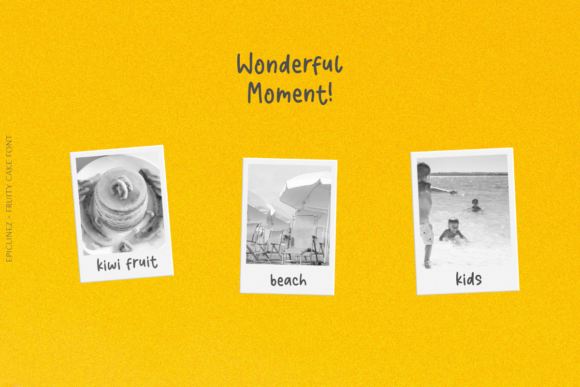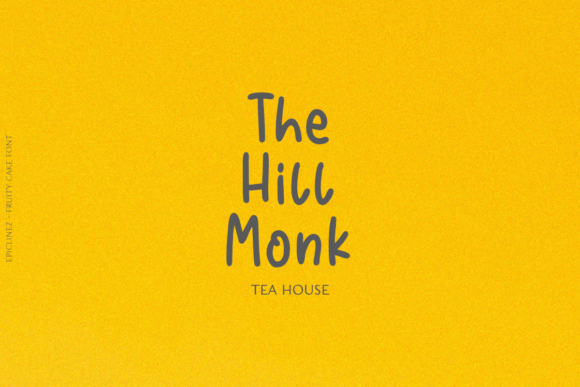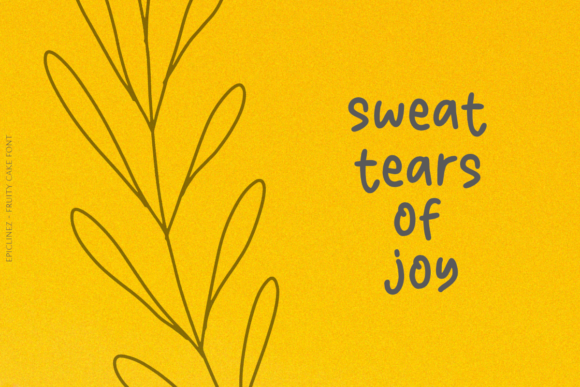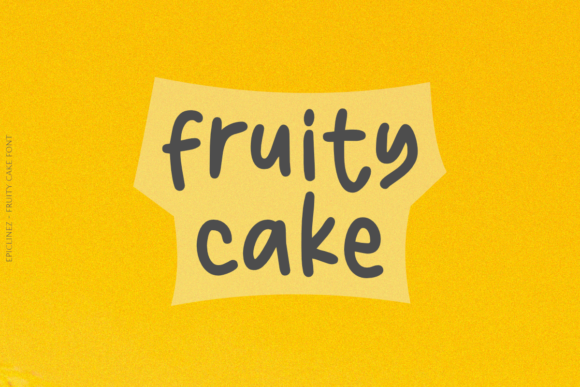
Fruity Cake Font: Add a Splash of Creativity to Your Designs!
Are you looking for a font that can add a playful touch to your designs? Look no further than the Fruity Cake font! This delightful handwritten font features a dancing baseline, making it perfect for children’s crafts, teaching materials, and any other design that needs a splash of creativity. In this article, we’ll dive into the world of Fruity Cake font and explore its features, uses, and benefits.
What is Fruity Cake Font?
Fruity Cake is a playful handwritten font designed to bring a sense of fun and playfulness to your designs. Its unique dancing baseline gives it a lively and energetic feel, making it perfect for designs that need to capture the attention of your audience. The font is highly legible and easy to read, making it suitable for a wide range of applications, from children’s books to educational materials, and even craft projects.
Features of Fruity Cake Font
So, what makes Fruity Cake font so special? Here are some of its key features:
- Playful handwritten style: Fruity Cake font has a playful, handwritten style that’s perfect for designs that need a personal touch.
- Dancing baseline: The font’s dancing baseline gives it a lively and energetic feel, making it perfect for designs that need to capture the attention of your audience.
- Highly legible: Despite its playful style, Fruity Cake font is highly legible and easy to read, making it suitable for a wide range of applications.
- Versatile: Fruity Cake font can be used for a wide range of designs, from children’s crafts to educational materials, and even digital products.
Uses of Fruity Cake Font
Fruity Cake font is a versatile font that can be used for a wide range of designs, including:
- Children’s crafts: Fruity Cake font is perfect for children’s crafts, such as coloring books, activity sheets, and educational materials.
- Teaching materials: The font’s playful style and high legibility make it perfect for teaching materials, such as worksheets, lesson plans, and educational resources.
- Craft projects: Fruity Cake font can be used for a wide range of craft projects, such as card making, scrapbooking, and DIY projects.
- Digital products: The font can also be used for digital products, such as ebooks, printables, and social media graphics.
Benefits of Using Fruity Cake Font
So, why should you use Fruity Cake font in your designs? Here are some of its benefits:
- Adds a playful touch: Fruity Cake font adds a playful touch to your designs, making them more engaging and fun.
- Increases creativity: The font’s unique style and dancing baseline can inspire creativity and help you think outside the box.
- Improves readability: Despite its playful style, Fruity Cake font is highly legible and easy to read, making it perfect for designs that need to communicate information.
- Versatile: Fruity Cake font can be used for a wide range of designs, making it a great addition to your font library.
Tips for Using Fruity Cake Font
Here are some tips for using Fruity Cake font in your designs:
- Use it for headings and titles: Fruity Cake font is perfect for headings and titles, where you want to add a playful touch to your design.
- Pair it with other fonts: Fruity Cake font can be paired with other fonts to create a unique and interesting combination.
- Experiment with colors and textures: The font’s playful style lends itself well to experimentation with colors and textures.
- Use it for digital and print designs: Fruity Cake font can be used for both digital and print designs, making it a great addition to your font library.
In conclusion, Fruity Cake font is a playful and versatile font that’s perfect for designs that need a splash of creativity. Its unique dancing baseline and highly legible style make it suitable for a wide range of applications, from children’s crafts to educational materials, and even digital products. With its numerous benefits and uses, Fruity Cake font is a great addition to any designer’s font library.